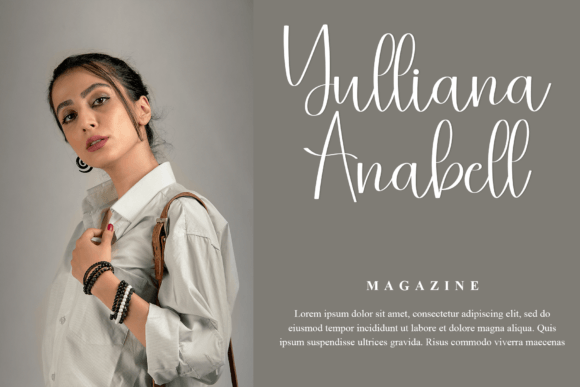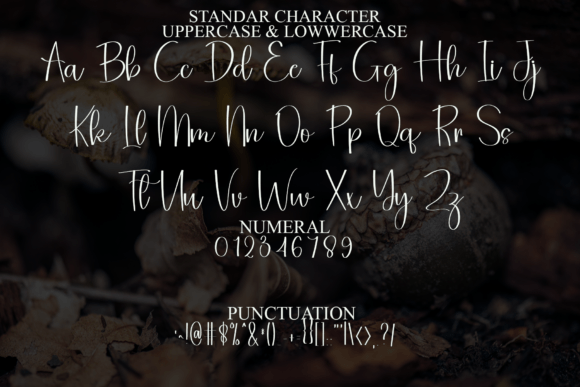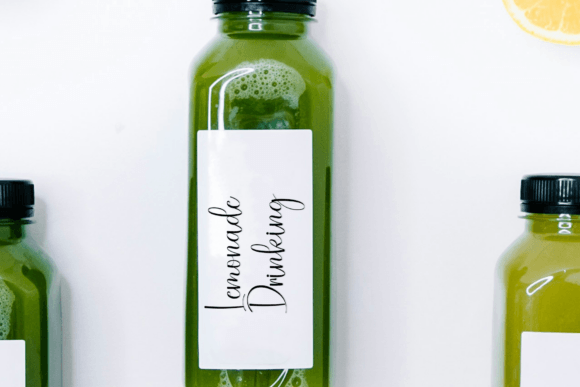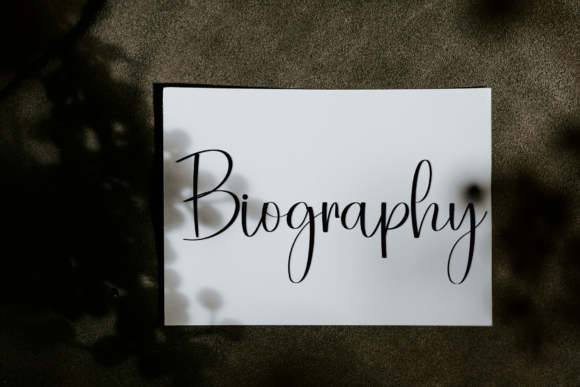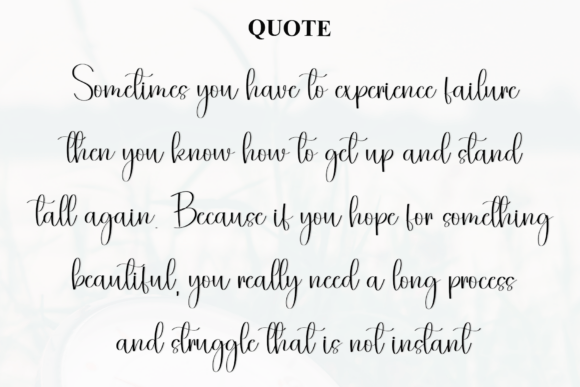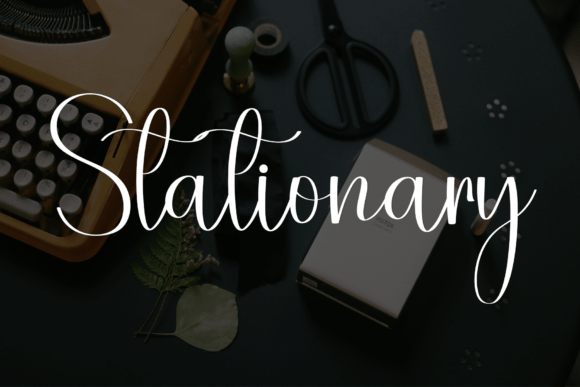
Introducing Handmade Typewriter Font: A Stylish and Modern Script Font
Are you looking for a font that can add a personal touch to your designs? Do you want to create something that stands out from the crowd and exudes a sense of creativity and playfulness? Look no further than the Handmade Typewriter Font. This stylish, handwritten script font is perfect for designers and crafters who want to add a touch of elegance and sophistication to their work.
What is Handmade Typewriter Font?
Handmade Typewriter Font is a modern script font that has smooth, flowing curves that make it look natural and playful. It’s a font that’s been carefully crafted to resemble the look of handwritten text, but with a level of precision and consistency that’s hard to achieve by hand. The result is a font that’s both elegant and approachable, perfect for adding a personal touch to designs.
Key Features of Handmade Typewriter Font
- Stylish and Modern Design: Handmade Typewriter Font has a stylish and modern design that’s perfect for creating eye-catching designs.
- Smooth and Flowing Curves: The font features smooth, flowing curves that make it look natural and playful.
- Handwritten Script Style: The font has a handwritten script style that’s perfect for adding a personal touch to designs.
- Multilingual Support: The font supports multiple languages, making it perfect for designers who work with clients from all over the world.
Uses of Handmade Typewriter Font
Handmade Typewriter Font is a versatile font that can be used for a wide range of design projects. Here are some of the most popular uses of the font:
- Invitations: The font is perfect for creating invitations for weddings, parties, and other special events.
- Logos: The font can be used to create unique and eye-catching logos for businesses and brands.
- Quotes and Posters: The font is great for creating inspirational quotes and posters that need to grab attention.
- Branding and Packaging: The font can be used for branding and packaging projects that require a personal touch.
Why Choose Handmade Typewriter Font?
There are many reasons why designers and crafters choose Handmade Typewriter Font for their projects. Here are a few:
- Unique and Creative: The font is unique and creative, making it perfect for designers who want to stand out from the crowd.
- Elegant and Sophisticated: The font has an elegant and sophisticated feel that’s perfect for creating high-end designs.
- Easy to Read: The font is easy to read, making it perfect for designs that require a lot of text.
- High-Quality: The font is of high-quality, making it perfect for professional design projects.
Tips for Using Handmade Typewriter Font
Here are some tips for using Handmade Typewriter Font in your designs:
- Use it for Headlines: The font is perfect for headlines and titles, where you want to grab attention.
- Pair it with Other Fonts: The font can be paired with other fonts to create a unique and interesting design.
- Experiment with Colors: The font looks great in a variety of colors, so experiment with different colors to find the one that works best for your design.
- Use it for Branding: The font is perfect for branding projects, where you want to create a consistent look and feel.
Handmade Typewriter Font is a stylish and modern script font that’s perfect for designers and crafters who want to add a personal touch to their designs. With its smooth, flowing curves and elegant feel, it’s perfect for creating eye-catching designs that stand out from the crowd. Whether you’re creating invitations, logos, or quotes, Handmade Typewriter Font is a great choice.